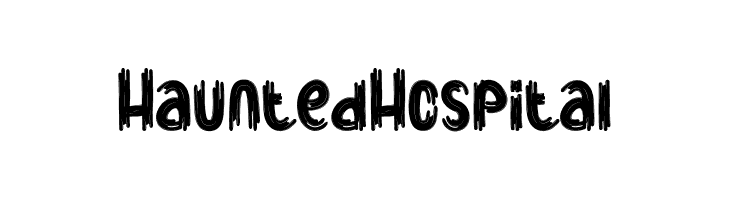
( Fonts by Scratchones )
A spooky, hand-drawn font with jagged, uneven strokes for a chilling effect.
( Fonts by Md Shohail Bhuian )
A bold, playful font with thick, uneven strokes and a hand-drawn feel.
( Fonts by Afika Studio )
A whimsical and eerie font with elongated, uneven strokes and playful curls.
( Fonts by Misti's Fonts )
A playful and quirky font with exaggerated curves and uneven strokes.
( Fonts by Asep Rendi )
A playful, bold font with quirky, uneven strokes and a lively appearance.
( Fonts by Tobby Ronaldson )
A casual, handwritten font with uneven strokes and an organic flow.
( Fonts by Khurasan )
A playful, childlike handwritten font with rounded, uneven strokes.
( Fonts by i made things )
A playful, handwritten font with uneven strokes and a casual style.
( Fonts by Pizzadude )
A playful, hand-drawn font with bold, uneven strokes and a whimsical style.
( Fonts by BlackFridayFont FMF )
Bold, whimsical display font with hand-drawn, uneven shapes.